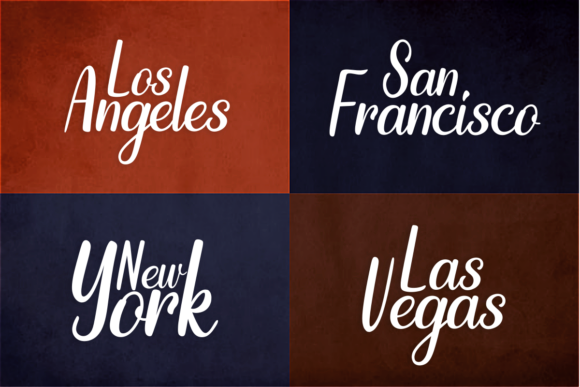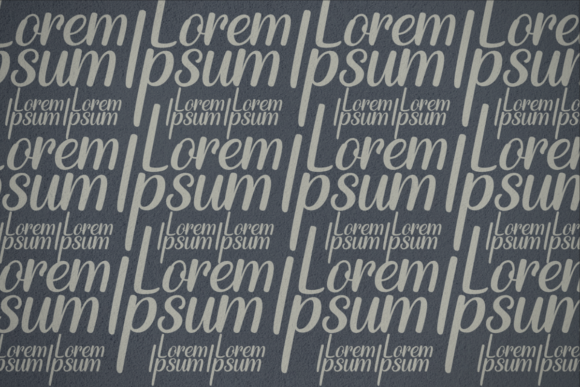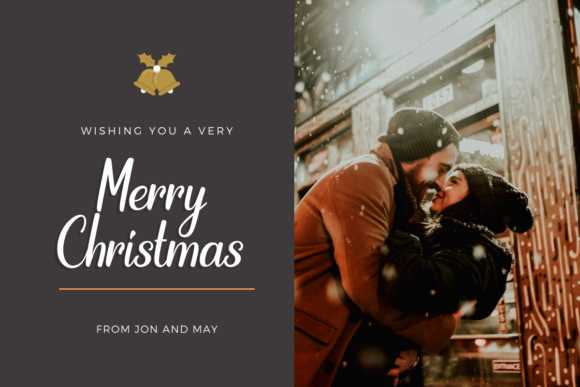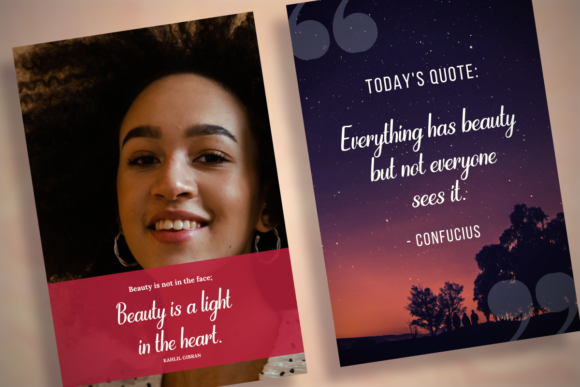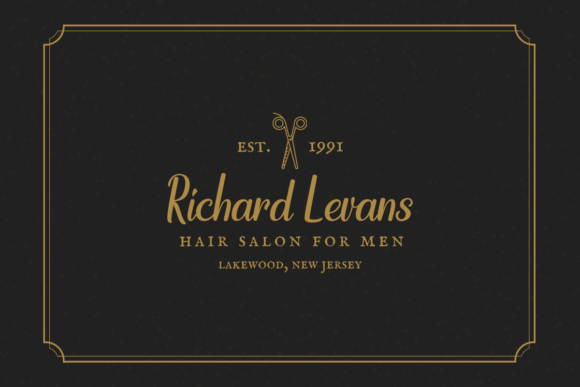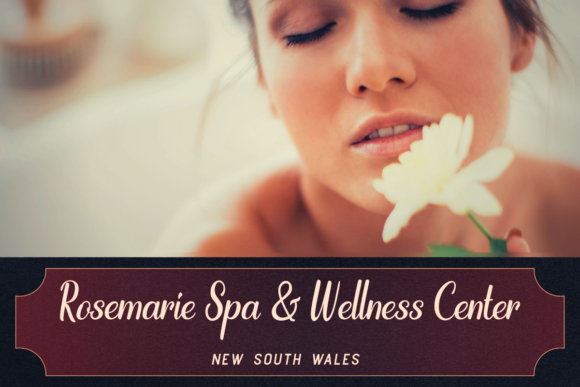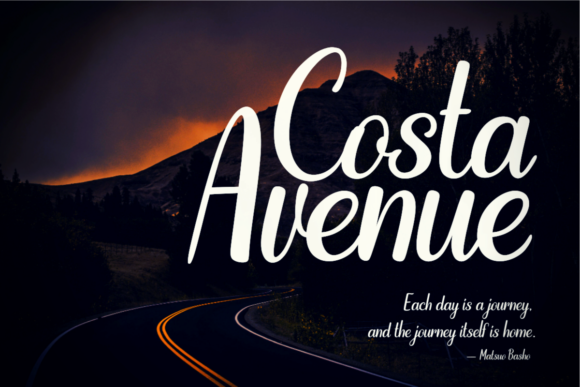
Costa Avenue Font: Elevate Your Designs with Sophistication and Elegance
In the world of typography, a well-crafted font can make all the difference in elevating a design from ordinary to extraordinary. Costa Avenue, a refined script font, is a prime example of a typeface that exudes sophistication and elegance. Its balanced and stylish design makes it an ideal choice for designers and crafters looking to add a touch of luxury to their projects.
The Essence of Costa Avenue Font
Costa Avenue is a meticulously designed script font that boasts a perfect blend of refinement and flair. Its flowing lines and curves create a sense of movement, while its balanced structure ensures that the font remains clear and legible. This harmonious balance of style and functionality makes Costa Avenue an excellent choice for a wide range of design applications, from branding and advertising to packaging and digital media.
Stylish Alternates and Ligatures
One of the standout features of Costa Avenue is its extensive range of stylish alternates and ligatures. These typographic elements allow designers to add an extra layer of creativity and personality to their work. The alternates provide subtle variations in letterforms, enabling designers to create a unique visual identity for their brand or project. Meanwhile, the ligatures offer a way to connect letters in a way that creates a seamless, fluid look. This level of customization ensures that Costa Avenue can be tailored to suit a variety of design needs.
Whether you’re working on a high-end branding campaign, a stylish packaging design, or a sophisticated digital project, Costa Avenue is the perfect match. Its versatility and elegance make it suitable for a wide range of applications, including:
- Branding and Identity: Create a lasting impression with Costa Avenue’s refined and sophisticated design.
- Packaging Design: Elevate your product packaging with a font that exudes luxury and elegance.
- Digital Media: Use Costa Avenue to add a touch of sophistication to your website, social media, or digital advertising.
- Stationery and Print: Create beautiful and elegant stationery, business cards, and print materials with Costa Avenue.
Why Choose Costa Avenue Font?
With so many fonts available, why choose Costa Avenue? Here are just a few reasons why this font stands out:
- Unique and Memorable: Costa Avenue’s stylish design ensures that your project will stand out from the crowd.
- Highly Versatile: Use Costa Avenue for a wide range of design applications, from branding to digital media.
- Elegant and Sophisticated: Add a touch of luxury to your design with Costa Avenue’s refined and elegant design.
- Easy to Read: Despite its stylized design, Costa Avenue remains clear and legible, making it perfect for body text and headlines.
In conclusion, Costa Avenue font is a refined script font that offers a perfect blend of sophistication and elegance. Its stylish alternates and ligatures make it an excellent choice for designers and crafters looking to add a touch of luxury to their projects. With its versatility, unique design, and high level of readability, Costa Avenue is the perfect match for any project. Whether you’re working on a branding campaign, packaging design, or digital project, Costa Avenue is sure to elevate your design to new heights.